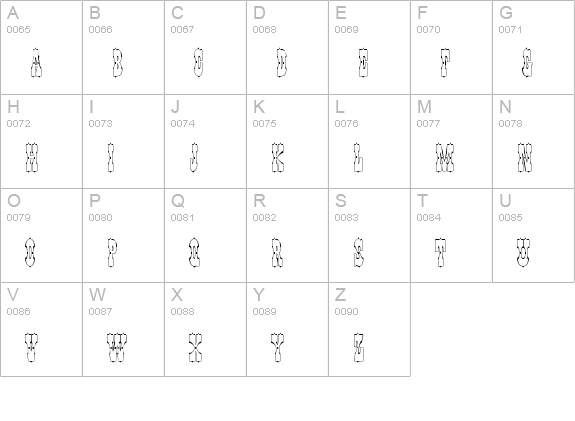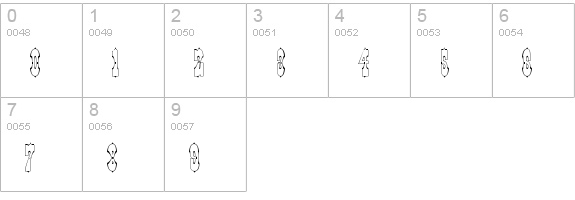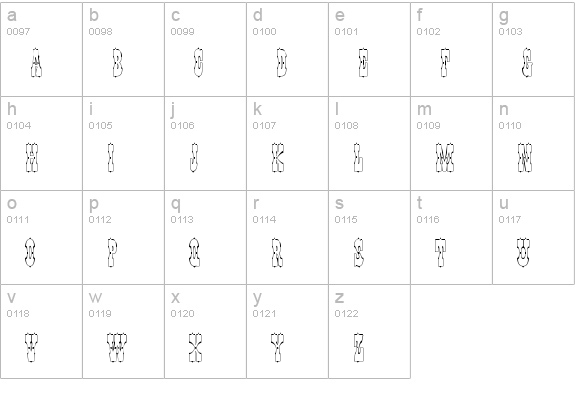
Pepperwood Std Outline Font Details
Pepperwood Std Outline font is a visually striking typeface that adds a touch of elegance and sophistication to any design project. With its delicate and intricate outlines, this font is perfect for creating eye-catching titles, headlines, or logos. The unique design of Pepperwood Std Outline font is sure to captivate your audience and make a lasting impression. Its clean and balanced letterforms create a harmonious composition that is both modern and timeless. What makes Pepperwood Std Outline font even more appealing is that it is freely available to download at FontsMarket.com. This means that you can easily access this stunning font and enhance your designs without any additional cost. Whether you are working on a branding project, a website design, or a print advertisement, Pepperwood Std Outline font will elevate your work to the next level. Its versatility allows it to be used in a variety of design contexts, making it a valuable asset in any designer's toolkit. Download Pepperwood Std Outline font today and experience the beauty and versatility of this incredible typeface. Let your creativity shine with the help of this free font, available exclusively at FontsMarket.com.